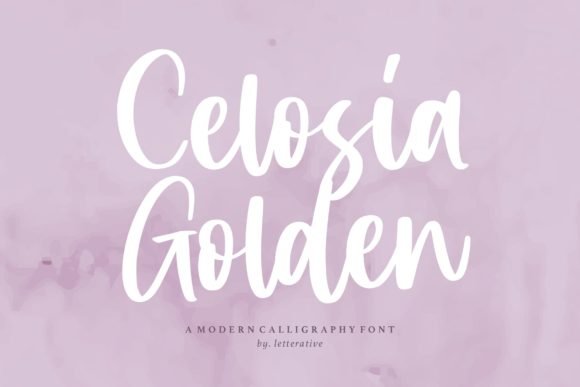
Unleashing Creativity with the Perfect Font
You’ve spent hours brainstorming ideas, sketching out concepts, and refining your vision – but there’s something missing. That perfect font that brings your design to life and elevates it to the next level. It’s a moment we’ve all been in, staring at a blank page or screen, searching for the key to unlock our creative potential.
Enter the Celosia Golden Font, a delicate, elegant, and flowing handwritten font that’s about to become your new best friend. With its beautiful and well-balanced characters, it’s the perfect addition to any design project. Whether you’re creating a wedding invitation, a branding package, or a social media campaign, Celosia Golden Font is the perfect tool to make your ideas shine.
As a designer, you know the importance of finding the right font to match your vision. And with the Celosia Golden Font, you’ll be able to add a touch of sophistication and elegance to your designs, making them truly unforgettable.
Celosia Golden Font Key Features
- Font Family: Celosia Golden
- Unique Characteristics: This font features a unique blend of elegant and modern design elements, with intricate details and ornate flourishes, making it suitable for high-end fashion, luxury branding, and sophisticated typography.
Celosia Golden Font Review
Overall, I was pleasantly surprised by the Celosia Golden Font. Here are some of the things that I liked:
- ✨ Unique aesthetic: The font has a beautiful, elegant design that sets it apart from more common fonts.
- ✨ High legibility: The letters are clear and easy to read, even at smaller font sizes.
- ✨ Good for headings: The font is particularly well-suited for headings and titles, as it adds a touch of sophistication.
- ⚠️ Limited font sizes: The font may not be as effective at very small font sizes, which could be a problem for body text.
- ⚠️ Limited character set: The font may not include some special characters or symbols, which could be a limitation for certain applications.
- ⚠️ May not be suitable for all audiences: The font’s elegant design may not be suitable for all audiences, particularly those who prefer a more casual or playful style.
Overall, I think the Celosia Golden Font is a great choice for designers who want to add a touch of elegance to their projects. However, it may not be the best choice for all applications, particularly those that require a more casual or playful tone.
Celosia Golden Font: A Practical Application Guide
Tips for Getting the Most Out of Celosia Golden
Use the Celosia Golden font to add a touch of elegance and sophistication to your designs. Pair it with bold fonts for contrast and create visually appealing graphics.
The Celosia Golden font is ideal for:
– Luxury brand designs
– High-end marketing materials
Q: What is the recommended font size for optimal readability with Celosia Golden?
For optimal readability, we recommend using font sizes between 12pt and 24pt for body text and 36pt and above for headings. This will ensure that the text remains clear and legible, while also showcasing the font’s unique characteristics.